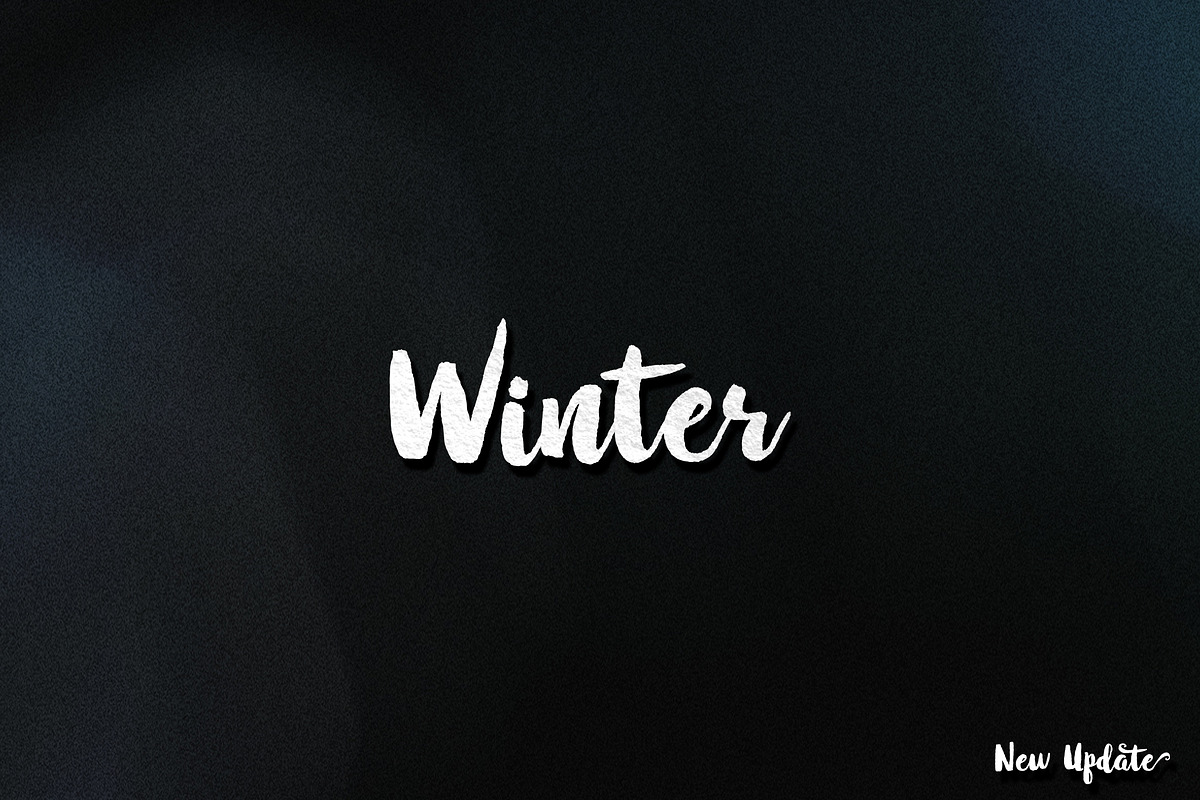
Winter Brush
Introducing: Winter Brush is a new font with textured stroke detail, also provided some ligatures and swashes extra.
Winter Brush can used for various purposes. such as the title, logo, correspondence, signage, labels, newsletters, badges, t-shirt, etc.
Comes with Uppercase and lowercase characters, large set of punctuation glyphs, numerals, supports international languages, stylistic alternates for several key lower case characters And this Font has given PUA unicode (specially coded fonts).